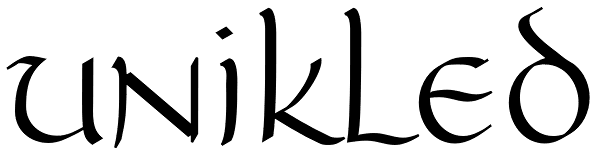
Unikled
Unikled was inspired by the uncial styles. The upper and lower cases are quite different and can be treated as two separate alphabets. It is available in two weights, plain and bold.